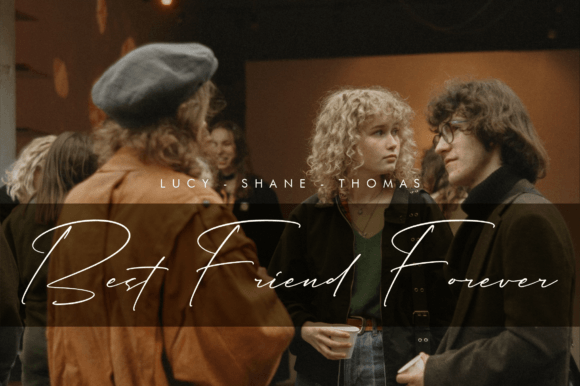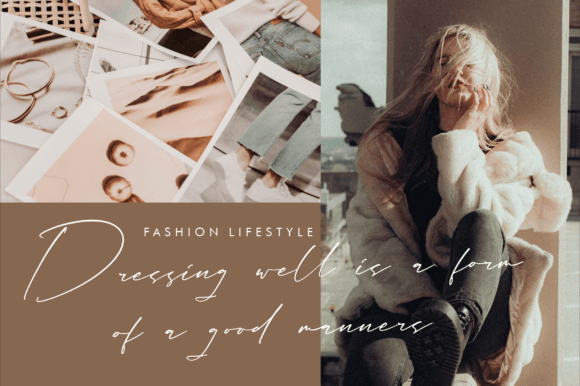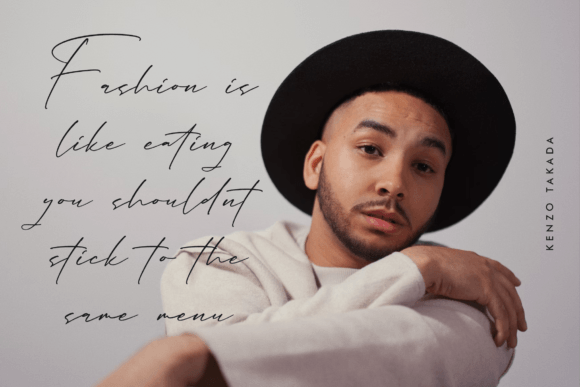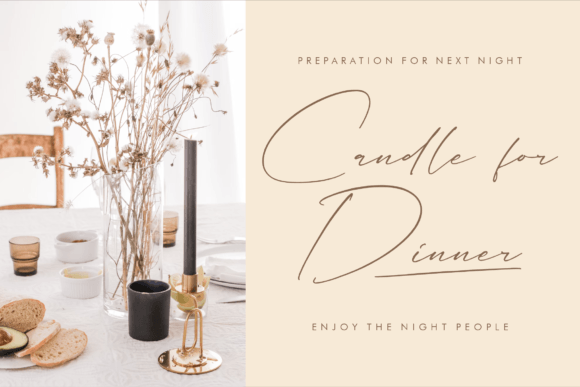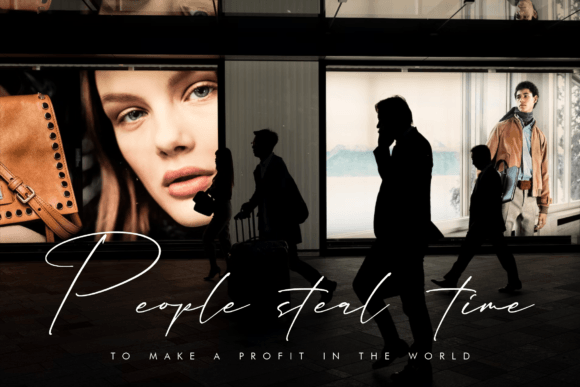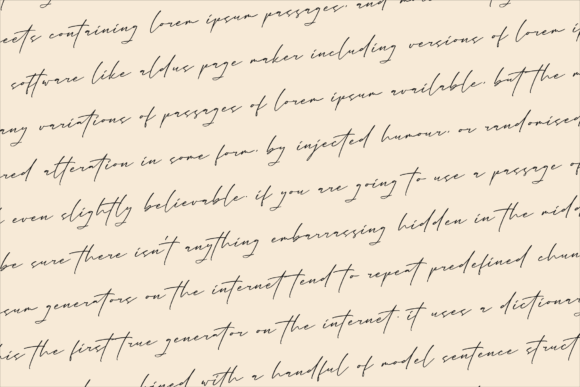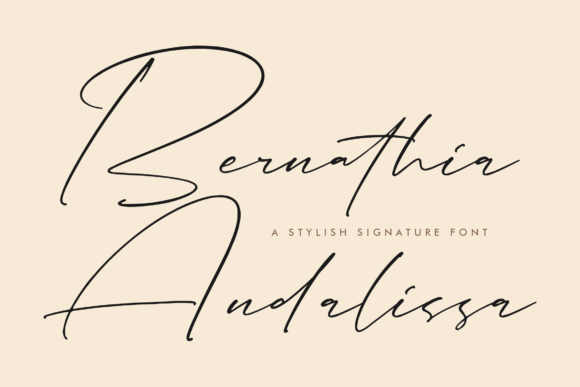
Bernathia Andalissa Font: Elevate Your Designs with Elegance and Sophistication
In the world of typography, a well-crafted font can make all the difference in elevating your design to new heights. Introducing Bernathia Andalissa, a stylish signature font created by Storytype that exudes luxury, elegance, and modernity. This stunning script font is perfect for designers and crafters looking to add a touch of sophistication to their work.
What Makes Bernathia Andalissa Stand Out?
Bernathia Andalissa boasts a unique style that sets it apart from other fonts in its category. Its modern look and luxurious feel make it an ideal choice for high-end designs, such as elegant logos, book or movie titles, fashion brand names, and magazine headers. The font’s distinctive characteristics include:
• Unique Style: Bernathia Andalissa’s one-of-a-kind design ensures that your work stands out from the crowd.
• Modern Look: The font’s contemporary feel makes it perfect for designs that require a fresh and sophisticated approach.
• Luxurious Feel: The elegant lines and curves of Bernathia Andalissa evoke a sense of luxury and refinement.
Bernathia Andalissa’s versatility makes it suitable for a wide range of design applications. Some of the many ways you can use this font include:
• Elegant Logos: Create a lasting impression with a custom logo that exudes luxury and sophistication.
• Book or Movie Titles: Add a touch of glamour to your book or movie titles with Bernathia Andalissa’s elegant script.
• Fashion Brand Names: Elevate your fashion brand with a font that embodies style and sophistication.
• Magazine Headers: Make a statement with Bernathia Andalissa’s modern and luxurious feel.
• Clothes and Lettering: Use the font to create eye-catching clothing designs, lettering, and quotes.
Why Choose Bernathia Andalissa?
With so many fonts available, why choose Bernathia Andalissa? Here are just a few reasons why this font stands out:
• High-Quality Design: Bernathia Andalissa is crafted with precision and attention to detail, ensuring a high-quality design that impresses.
• Easy to Read: The font’s clear and elegant lines make it easy to read, even in smaller sizes.
• Versatile: Bernathia Andalissa can be used for both digital and print designs, making it a versatile addition to your font library.
Tips for Using Bernathia Andalissa
To get the most out of Bernathia Andalissa, here are a few tips to keep in mind:
• Pair with Neutral Colors: Bernathia Andalissa looks stunning when paired with neutral colors like black, white, and gray.
• Experiment with Sizes: The font’s elegant lines and curves look great in a variety of sizes, from small to large.
• Add a Personal Touch: Use Bernathia Andalissa to add a personal touch to your designs, making them more unique and eye-catching.
Bernathia Andalissa is a truly exceptional font that can elevate your designs to new heights. With its unique style, modern look, and luxurious feel, this font is perfect for designers and crafters looking to add a touch of elegance and sophistication to their work. Whether you’re creating a logo, book or movie title, fashion brand name, or magazine header, Bernathia Andalissa is the perfect choice.